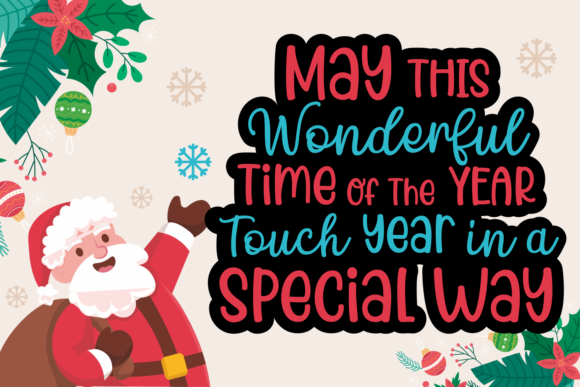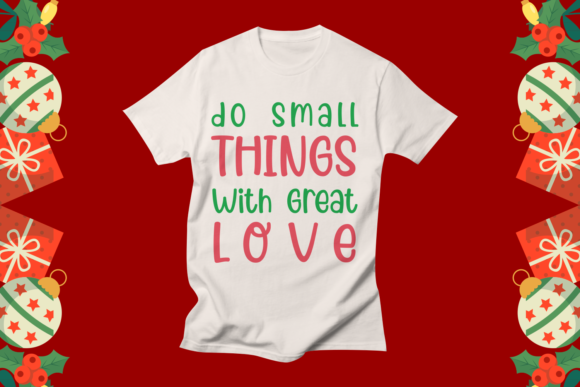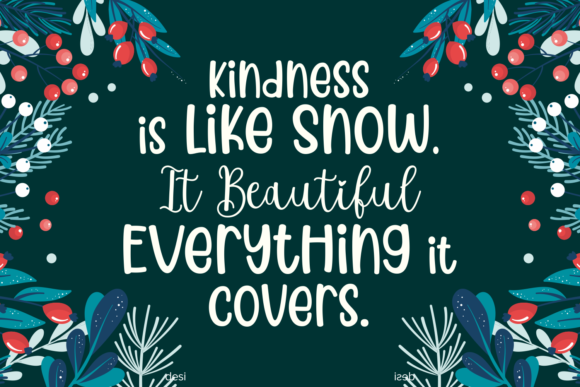
Introducing Good Morning Christmas Font: A Fun and Friendly Handwritten Delight
Are you looking for a font that embodies the spirit of Christmas and adds a touch of playfulness to your designs? Look no further than the Good Morning Christmas Font! This delightful handwritten font is perfect for festive designs, holiday projects, and any other creative endeavors you have in mind. With its rich and cheerful vibe, Good Morning Christmas Font is sure to bring joy and festivity to your work.
What Makes Good Morning Christmas Font So Special?
Good Morning Christmas Font is a fun and friendly handwritten font that is designed to make your designs stand out. Its playful and rich texture gives it a unique and festive feel that’s perfect for Christmas-themed projects, holiday cards, and winter-themed designs. The font’s friendly and approachable vibe makes it ideal for a wide range of applications, from festive headers and titles to social media graphics and craft projects.
Key Features of Good Morning Christmas Font
- Handwritten style: Good Morning Christmas Font boasts a beautiful, handwritten style that’s perfect for adding a personal touch to your designs.
- Playful and rich texture: The font’s playful and rich texture gives it a unique and festive feel that’s sure to capture the spirit of Christmas.
- Versatile: Good Morning Christmas Font is versatile and can be used for a wide range of projects, from festive designs to everyday craft projects.
Uses for Good Morning Christmas Font
Good Morning Christmas Font is perfect for a wide range of projects, including:
- Christmas cards and invitations: Add a touch of festivity to your holiday cards and invitations with Good Morning Christmas Font.
- Holiday social media graphics: Use Good Morning Christmas Font to create eye-catching social media graphics that capture the spirit of the season.
- Festive headers and titles: Add a playful touch to your festive headers and titles with Good Morning Christmas Font.
- Craft projects: Good Morning Christmas Font is perfect for a wide range of craft projects, from scrapbooking to papercraft.
- Winter-themed designs: Use Good Morning Christmas Font to add a touch of warmth and festivity to your winter-themed designs.
Tips for Using Good Morning Christmas Font
Here are some tips for getting the most out of Good Morning Christmas Font:
- Experiment with different colors: Good Morning Christmas Font looks great in a range of colors, from bright and bold to soft and pastel.
- Pair with other festive fonts: Pair Good Morning Christmas Font with other festive fonts to create a unique and eye-catching look.
- Use for headlines and titles: Good Morning Christmas Font is perfect for headlines and titles, adding a touch of festivity and playfulness to your designs.
- Don’t be afraid to get creative: Good Morning Christmas Font is a versatile font that can be used in a wide range of creative projects, so don’t be afraid to experiment and try new things!
Good Morning Christmas Font is a fun and friendly handwritten font that’s perfect for festive designs, holiday projects, and any other creative endeavors you have in mind. With its playful and rich texture, this delightful font is sure to bring joy and festivity to your work. So why not give Good Morning Christmas Font a try and see how it can add a touch of Christmas magic to your designs?
Whether you’re a designer, crafter, or simply someone who loves the festive season, Good Morning Christmas Font is a great addition to your font collection. So go ahead, let your imagination run free, and see what amazing designs you can create with Good Morning Christmas Font!